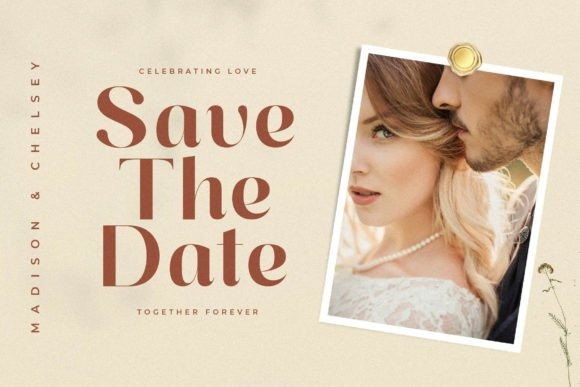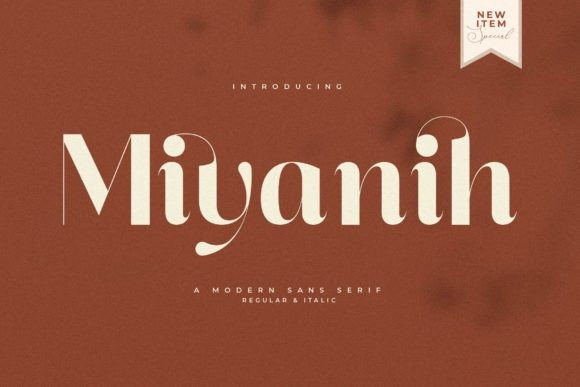
Miyanih Font
Miyanih Font is a modern and stylish sans serif font that has its own unique appearance. This typeface is perfect for an elegant and luxurious logo, fashion brands, magazines, apparel, lettering, quotes, and so much more.